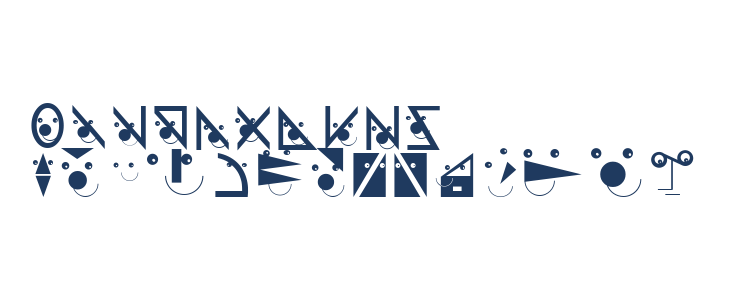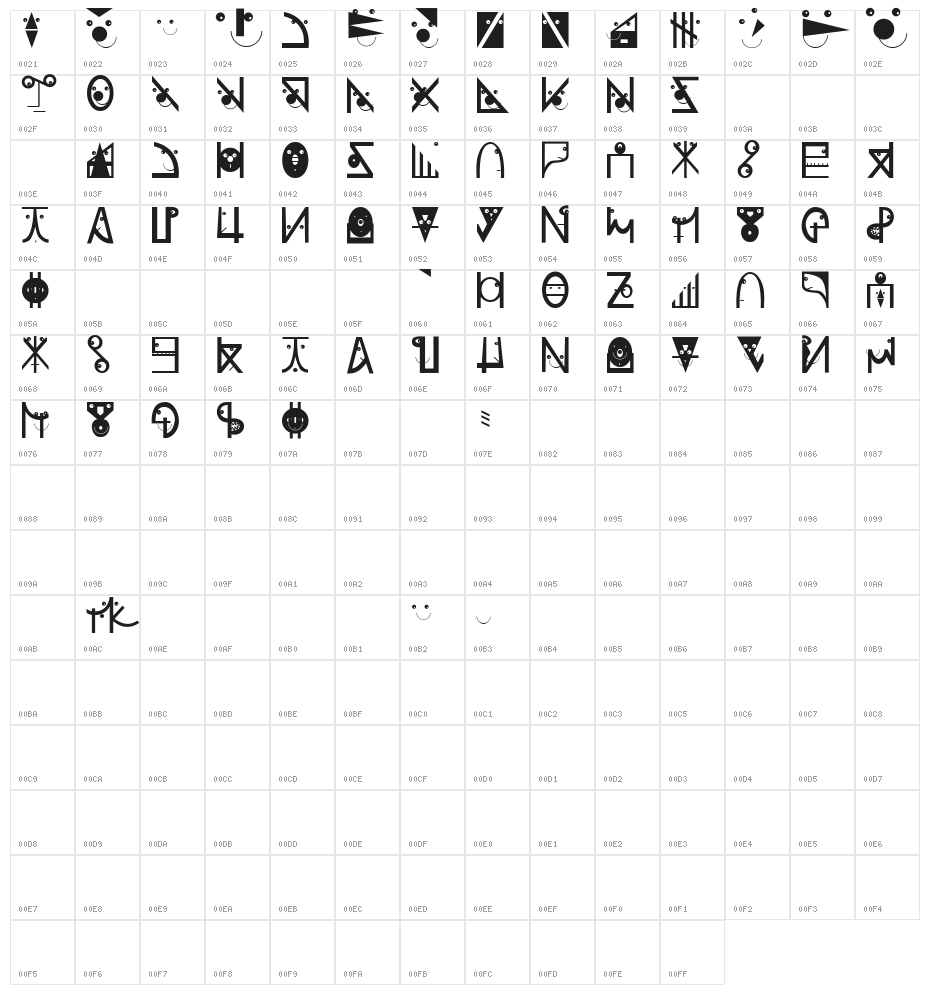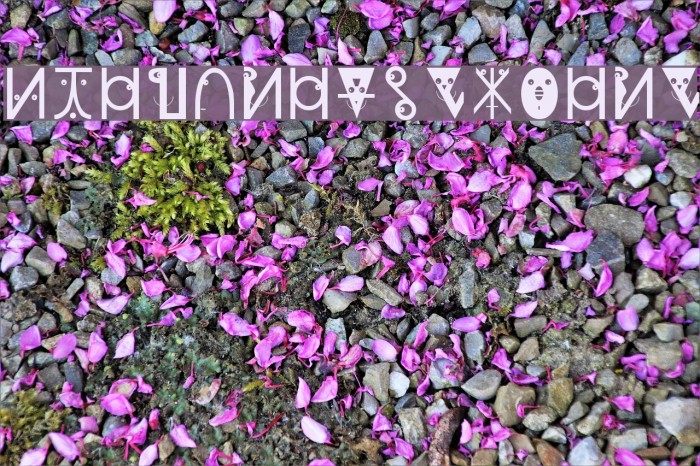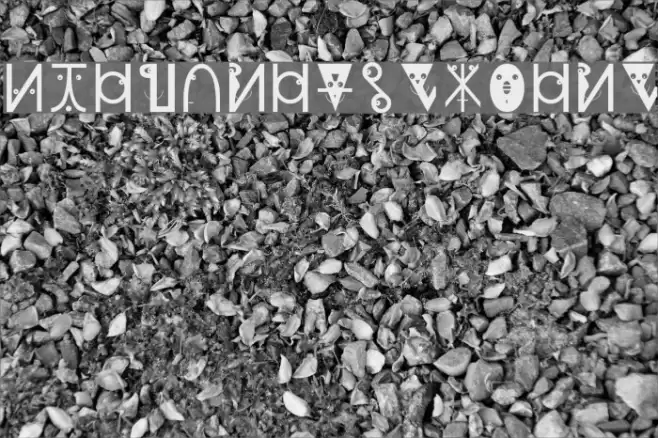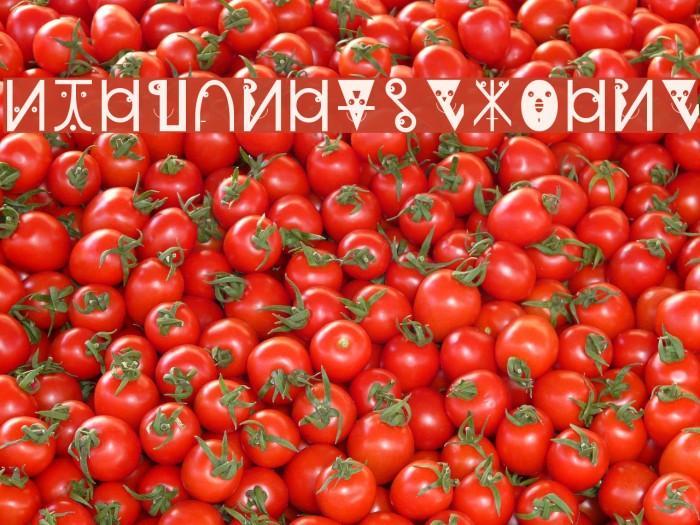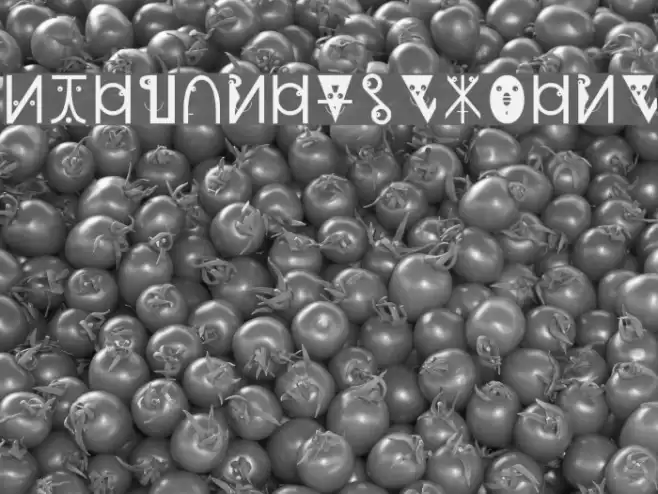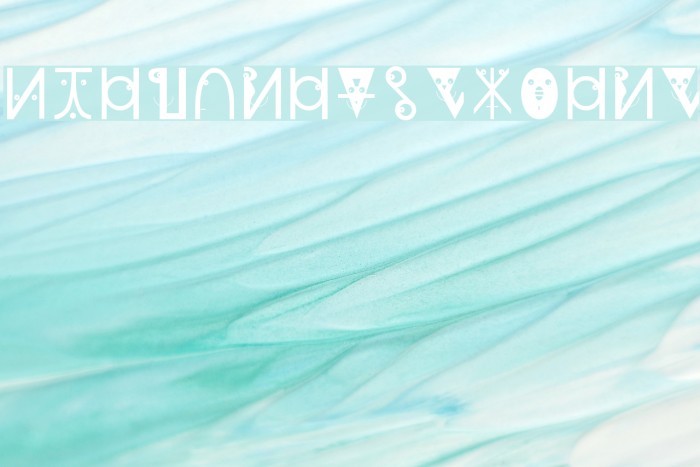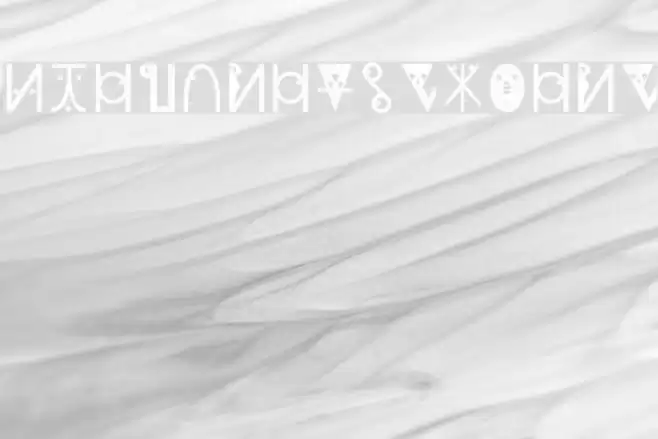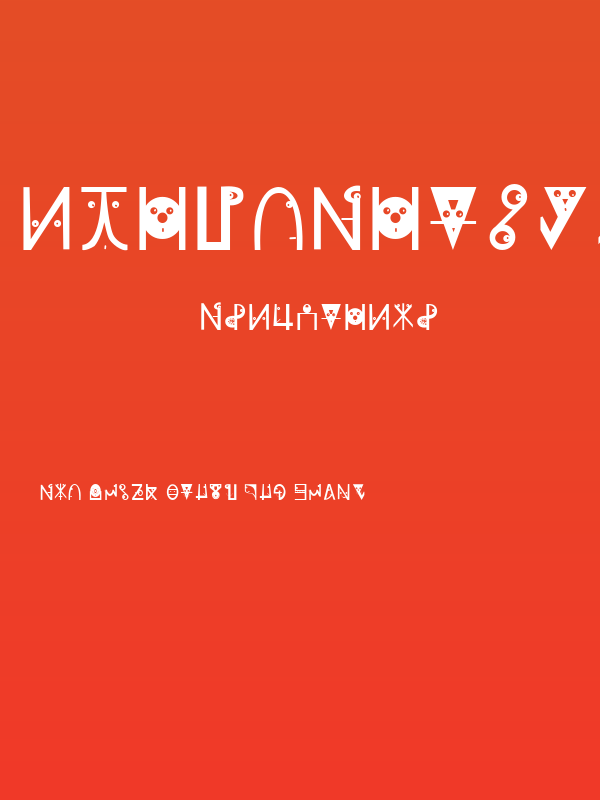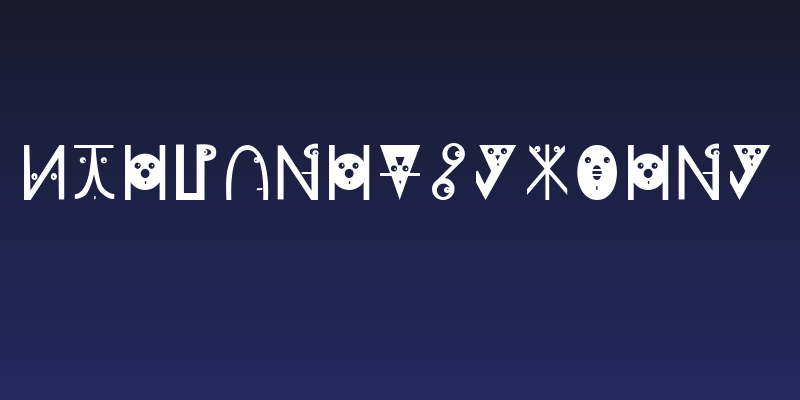
PlanetarishBats Font
PlanetarishBats Description
This font features a highly decorative and abstract design, incorporating geometric shapes and whimsical elements. Each character is uniquely crafted with intricate details, combining circles, triangles, and lines to create a playful and artistic appearance. The font's style is reminiscent of ancient symbols or alien scripts, offering a mysterious and otherworldly vibe. The characters are bold and striking, making them stand out in any design. This font is perfect for creative projects that require a touch of fantasy and imagination.
| Use Case | Logos, Posters, Creative projects |
| Proposed Projects | Ideal for sci-fi themed designs, fantasy book covers, creative posters, and unique branding projects. |